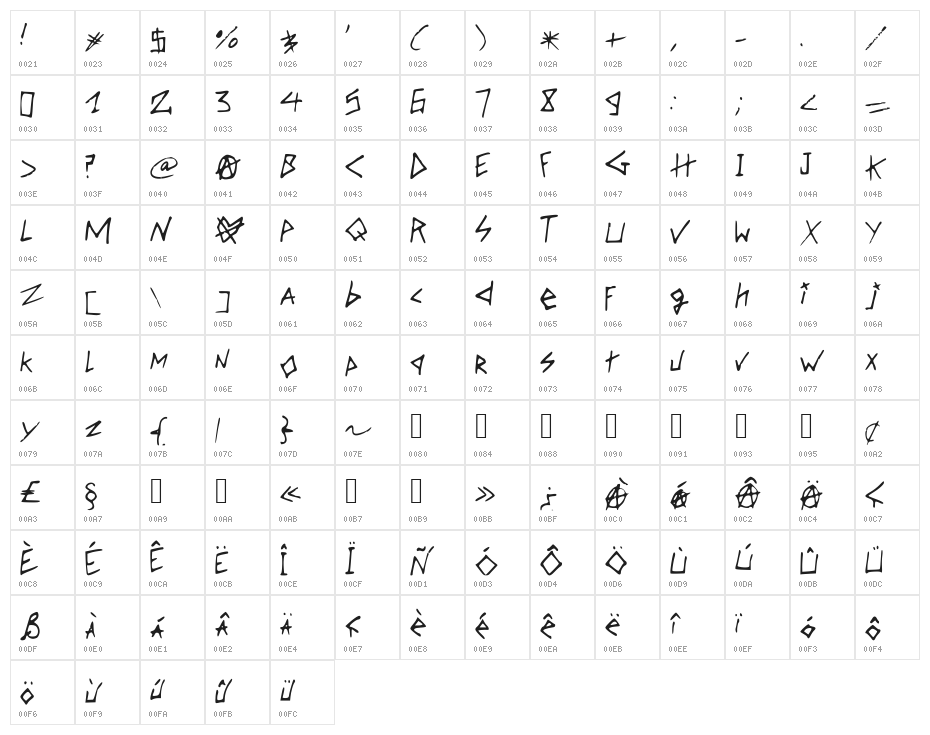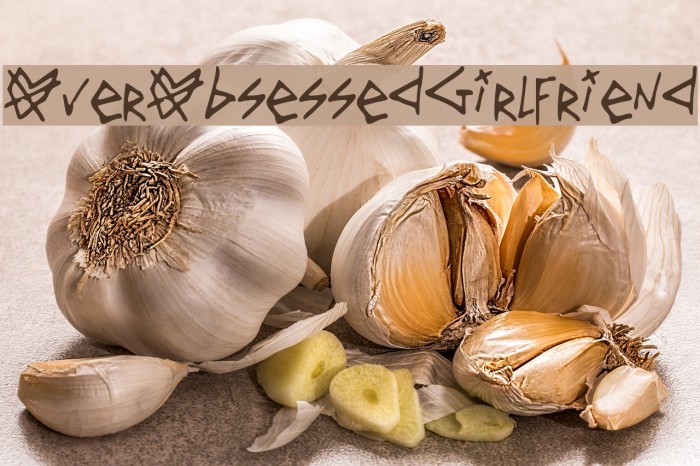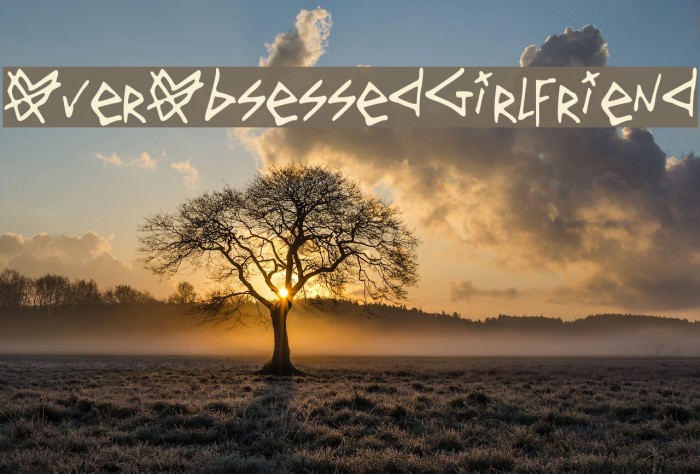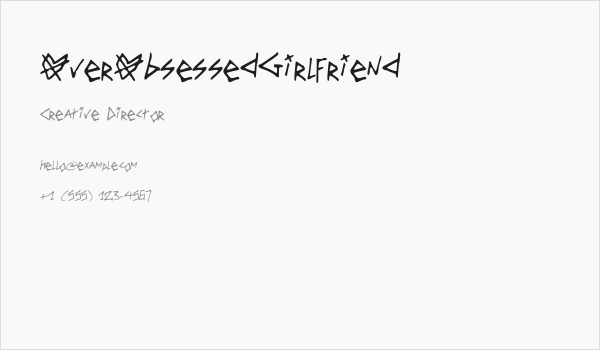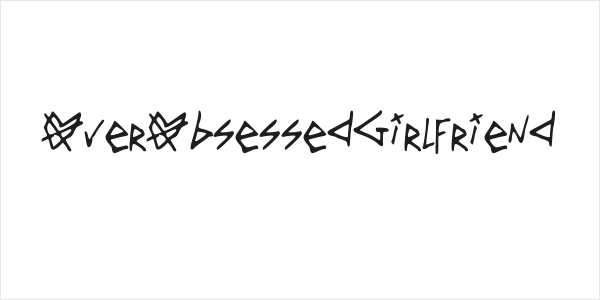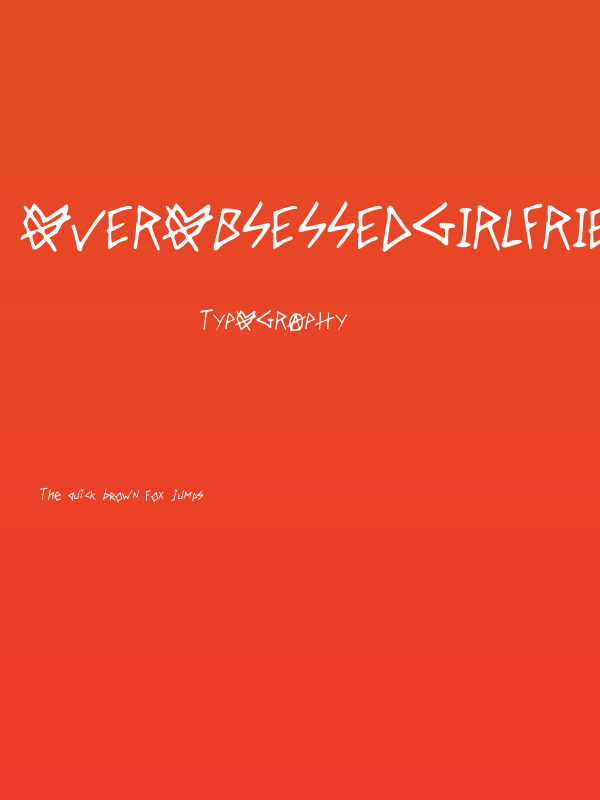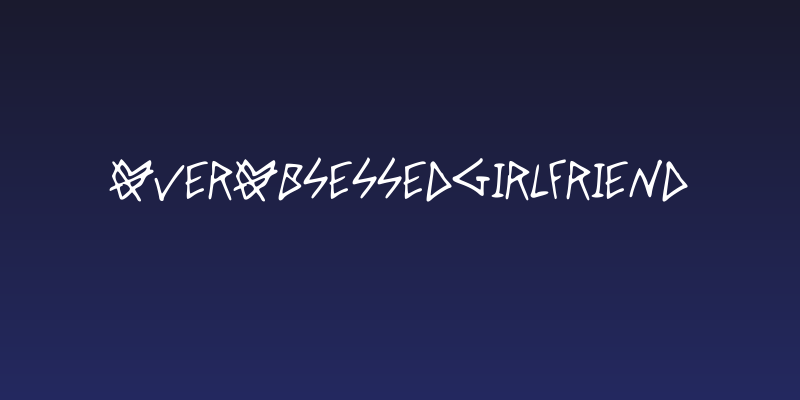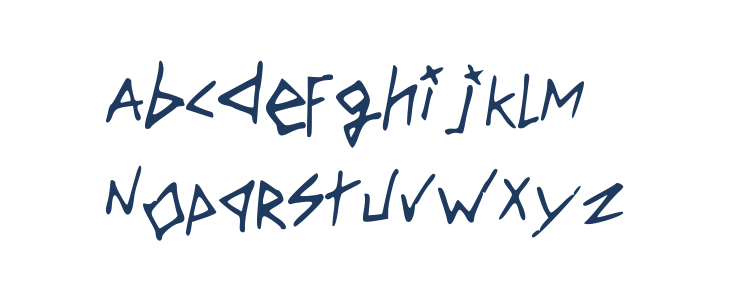
OverObsessedGirlfriend Font
OverObsessedGirlfriend Description
This font exhibits a highly expressive and chaotic style, characterized by irregular, jagged strokes and a hand-drawn appearance. The uppercase and lowercase letters share a consistent, edgy aesthetic, with each character appearing unique and slightly distorted. The numerals and special characters maintain this erratic style, adding to the font's overall dynamic and unconventional look. The font's design suggests a sense of urgency and spontaneity, making it stand out with its bold and artistic flair. It captures attention with its raw, unpolished edges and varying line thickness, creating a visually striking effect.